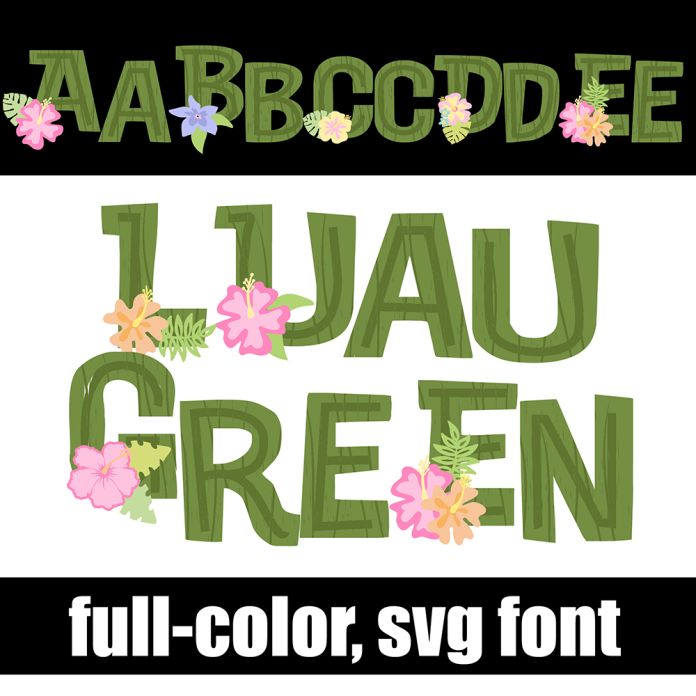
This full-color font features bamboo and tropical flowers. There is an alt case w/reverse colors you can access through your system or Silhouette's glyph map. This font works best for titles, displays, posters and more. Please note color fonts will show as black in non compatible programs. This font type is compatible with Silhouette Studio.